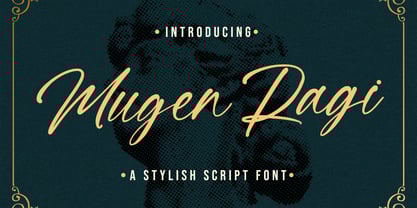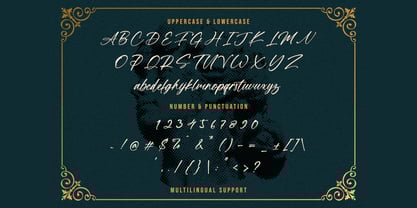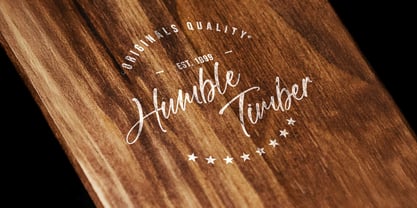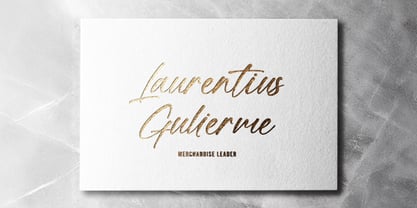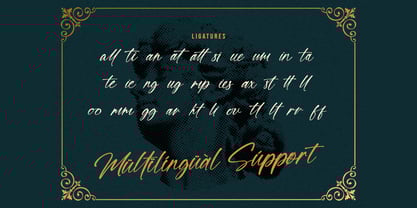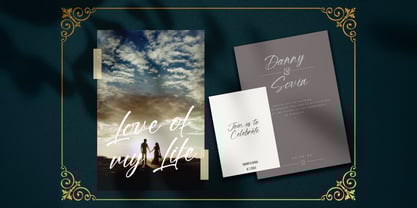
The Mugen Ragi Font Family was designed by Virgiawan Listanto and published by Stringlabs Creative Studio. Mugen Ragi contains 1 styles. More about this family
Mugen Ragi is a modern script font that blends elegant curves with a contemporary handwritten feel. Its smooth strokes and stylish ligatures create a luxurious yet approachable vibe, making it perfect for branding, logos, wedding designs, invitations, social media posts, and product packaging. With a balance of sophistication and creativity, Mugen Ragi adds a refined, personal touch that enhances any design with charm and modern beauty.
Designers: Virgiawan Listanto
Foundry: Stringlabs Creative Studio
Mugen Ragi